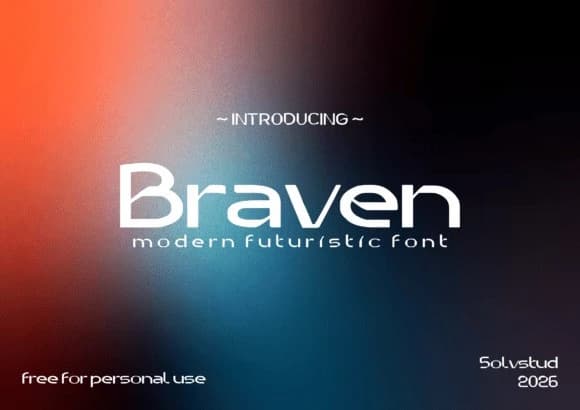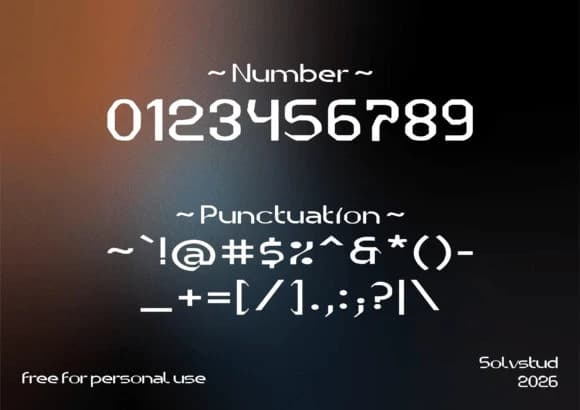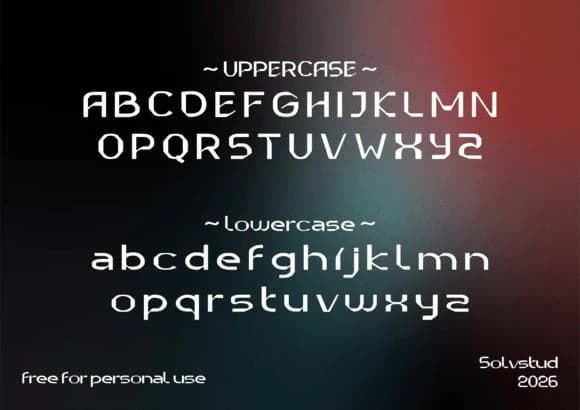
Braven Font
Braven Font, a modern futuristic font. This typeface features wide, expansive letterforms with clean geometric lines and distinctive, precision-cut apertures that radiate high-tech sophistication.